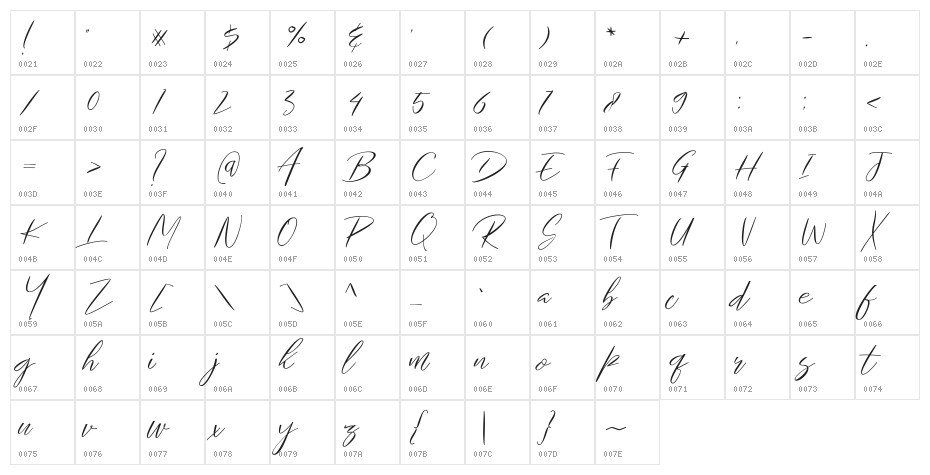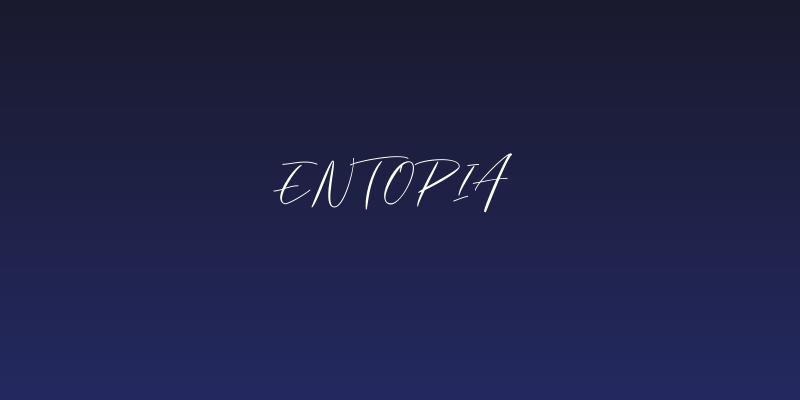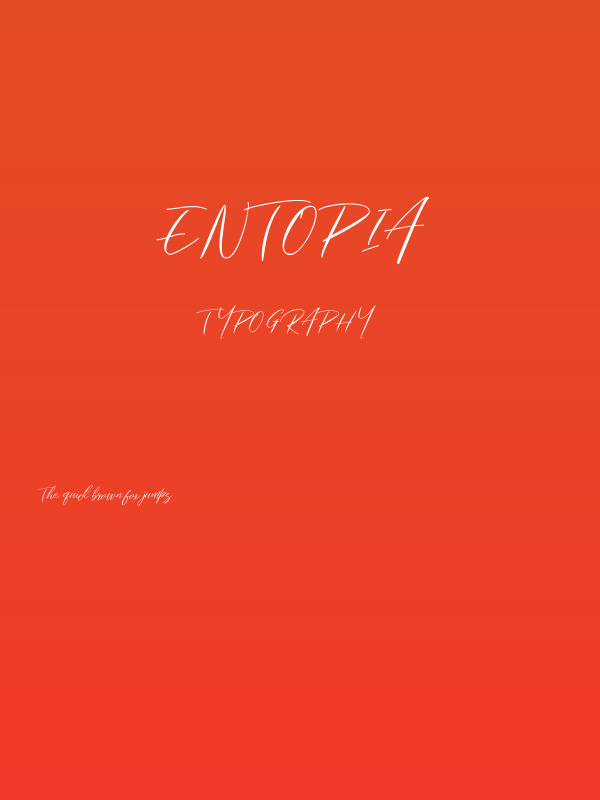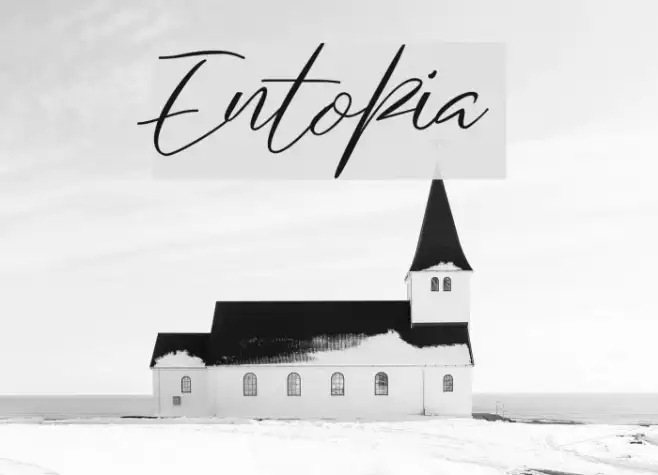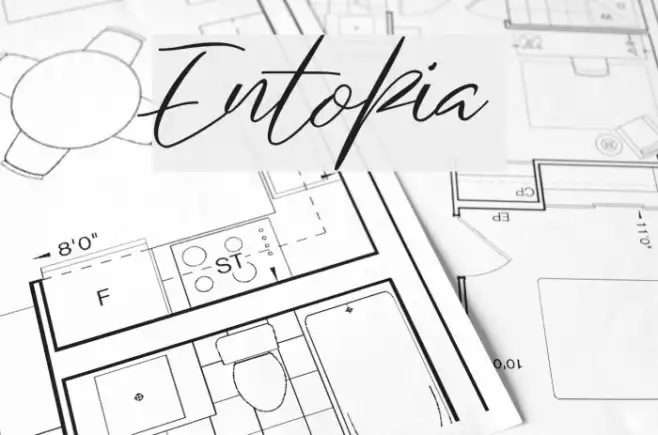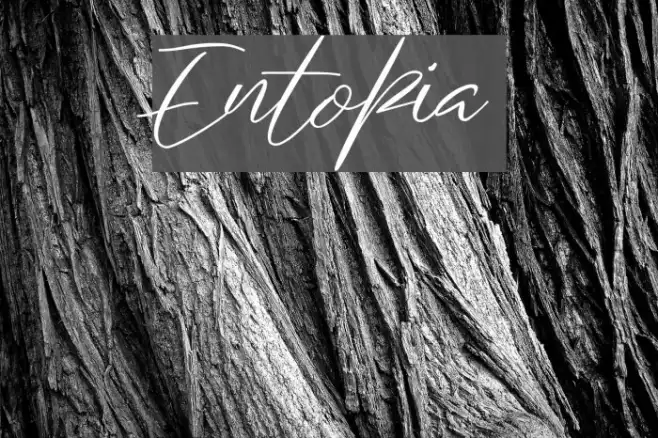
Entopia Font
Entopia Description
This font features a fluid and elegant script style, characterized by its smooth, flowing lines and graceful curves. The uppercase letters exhibit a sophisticated flair, with elongated strokes and a slight slant that adds a sense of motion. The lowercase letters maintain a consistent style, with rounded forms and a harmonious balance between thick and thin strokes. The numerals are designed to complement the overall aesthetic, featuring similar curves and a slightly playful touch. Special characters are seamlessly integrated, enhancing the font's versatility. This font exudes a sense of elegance and creativity, making it suitable for a variety of design applications.
| Proposed Projects | Ideal for wedding invitations, branding, logos, and elegant packaging designs. |